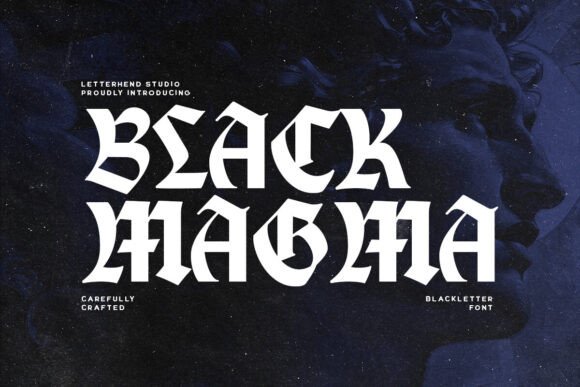
Unleashing the Power of Black Magma Font: A Modern Twist on Traditional Blackletter Style
In the realm of typography, few fonts have managed to capture the essence of both modernity and tradition as effectively as Black Magma. This contemporary take on the classic blackletter style has been turning heads with its unique blend of boldness and readability. Whether you’re a designer looking to elevate your branding, a craftsperson seeking the perfect font for your packaging, or a digital artist aiming to add a touch of elegance to your work, Black Magma is an excellent choice.
The Evolution of Blackletter Style
Blackletter fonts have a rich history, dating back to the Middle Ages. Characterized by their dramatic flourishes and bold strokes, these fonts were originally used for illuminated manuscripts and later became a staple of Gothic architecture and literature. However, as design trends evolved, so did the need for more versatile and legible fonts. This is where Black Magma comes into play, offering a fresh perspective on the traditional blackletter style.
What Makes Black Magma Stand Out?
Black Magma’s design strikes a perfect balance between refinement and organic feel. Its bold strokes and sharp lines are reminiscent of traditional blackletter fonts, while its clean and clear letterforms ensure excellent readability. This versatility makes Black Magma an ideal choice for a wide range of applications, from modern branding and digital art to classic book covers and packaging.
Key Features of Black Magma Font
- Contemporary Design: Black Magma brings a modern twist to the traditional blackletter style, making it perfect for designers looking to create unique and eye-catching projects.
- Bold yet Readable: The font’s bold strokes and clear letterforms ensure that your message is conveyed with impact, without compromising on legibility.
- Versatile: Black Magma’s refined yet organic design makes it suitable for a wide range of applications, including branding, posters, book covers, packaging, and digital art.
- Cross-Platform Compatibility: The font maintains clear legibility across all platforms, ensuring that your work looks great whether it’s on a website, social media, or print materials.
Applications of Black Magma Font
Black Magma’s versatility makes it an excellent choice for various design projects. Here are some of the ways you can use this powerful font:
Branding
Make a statement with your brand identity using Black Magma. Its bold and elegant design is perfect for creating logos, business cards, and other marketing materials that exude confidence and sophistication.
Posters and Flyers
Add a touch of drama and elegance to your posters and flyers with Black Magma. Its clear legibility and bold design make it an excellent choice for headlines, titles, and short paragraphs.
Book Covers and Packaging
Give your book covers and packaging a timeless and classic look with Black Magma. Its traditional blackletter style and modern twist make it perfect for fiction and non-fiction books, as well as product packaging.
Digital Art
Take your digital art to the next level with Black Magma. Use it to add text overlays, captions, or quotes to your artwork, and watch your designs come alive with elegance and sophistication.
Black Magma font is a game-changer for designers and crafters looking to add a touch of elegance and sophistication to their projects. Its unique blend of traditional blackletter style and modern design makes it versatile, readable, and perfect for a wide range of applications. Whether you’re working on branding, posters, book covers, packaging, or digital art, Black Magma is an excellent choice. So why wait? Unlock the power of Black Magma and take your designs to new heights!